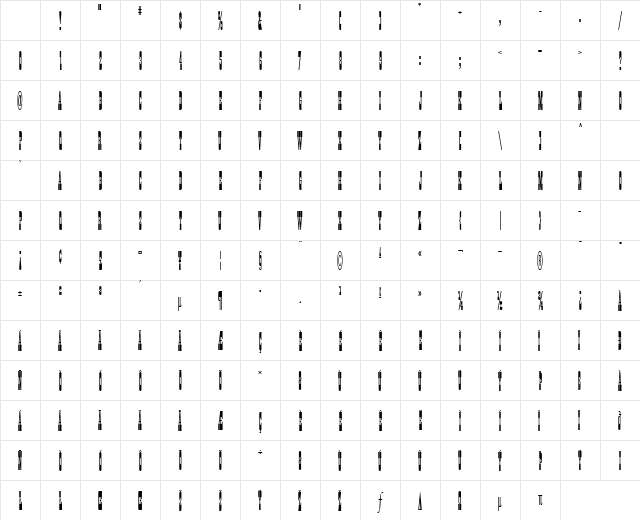
Complete Wainwright ICG Regular glyph index. Displaying only characters natively supported by Wainwright ICG Regular font.
Wainwright ICG is a composed and adaptable typeface that performs quietly and consistently across a wide range of design contexts.